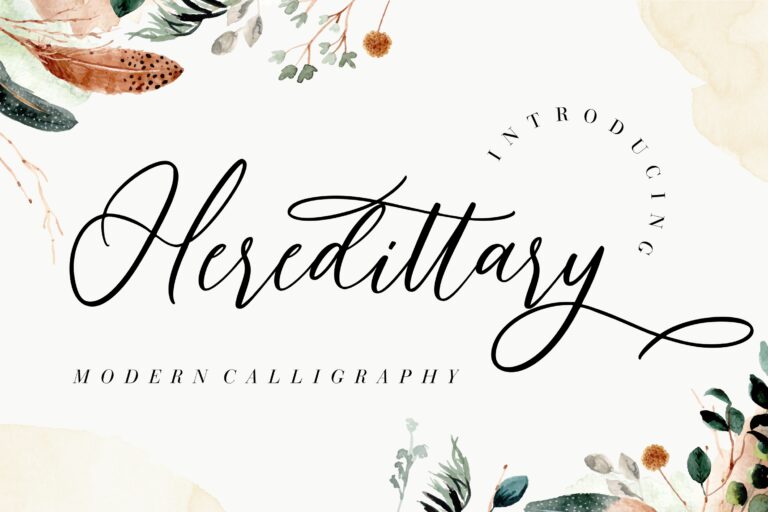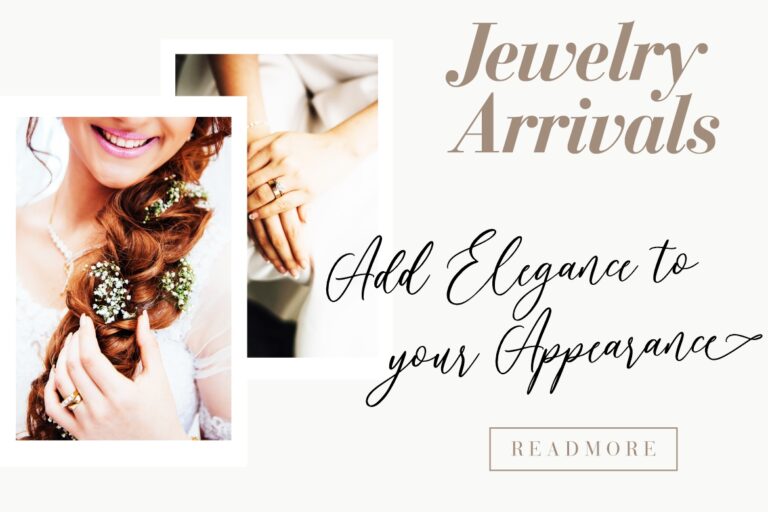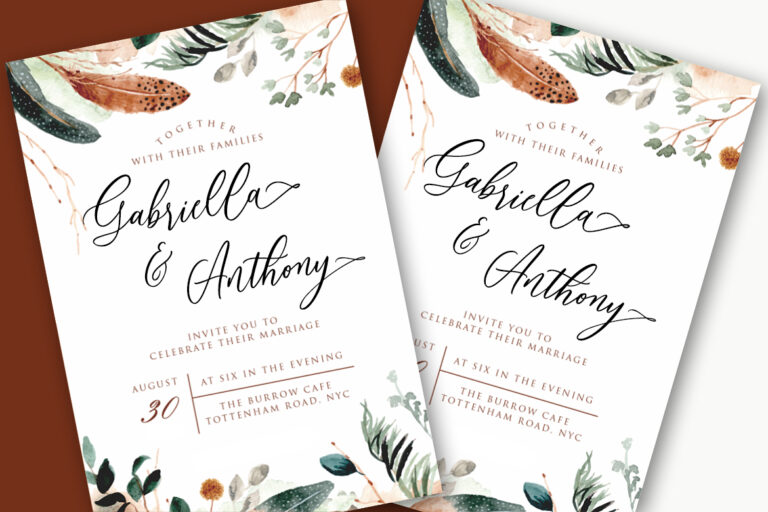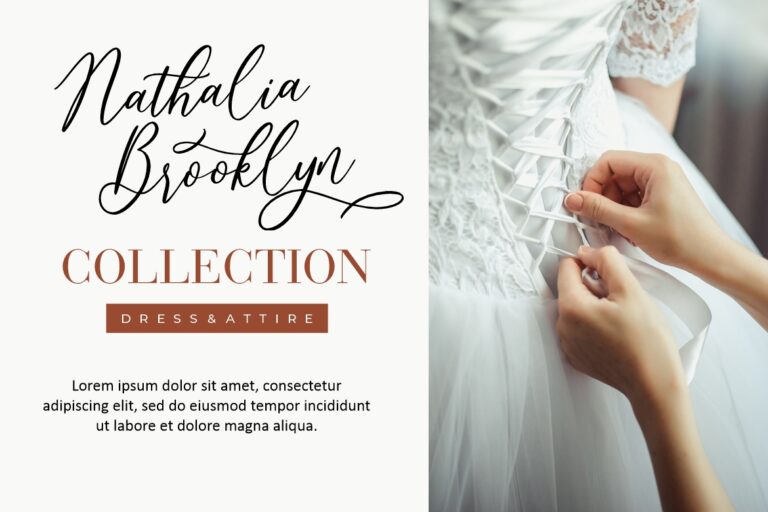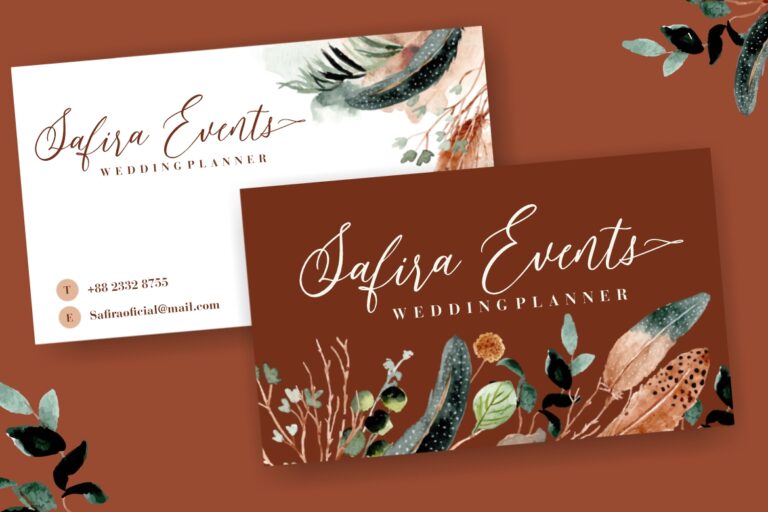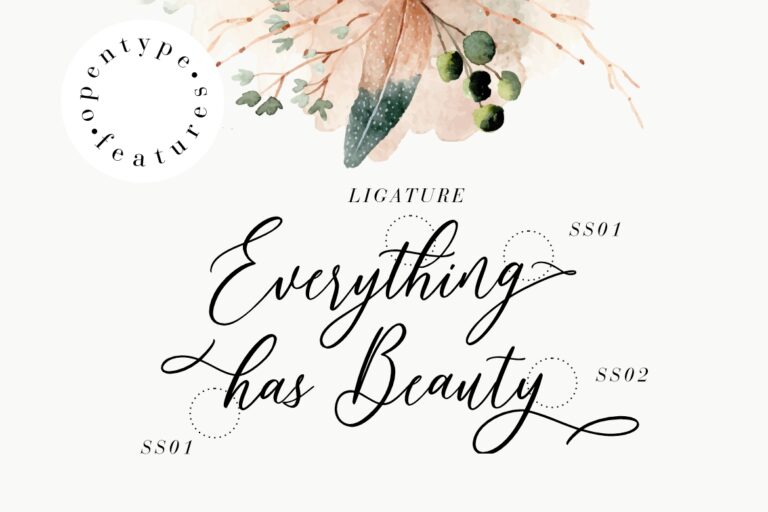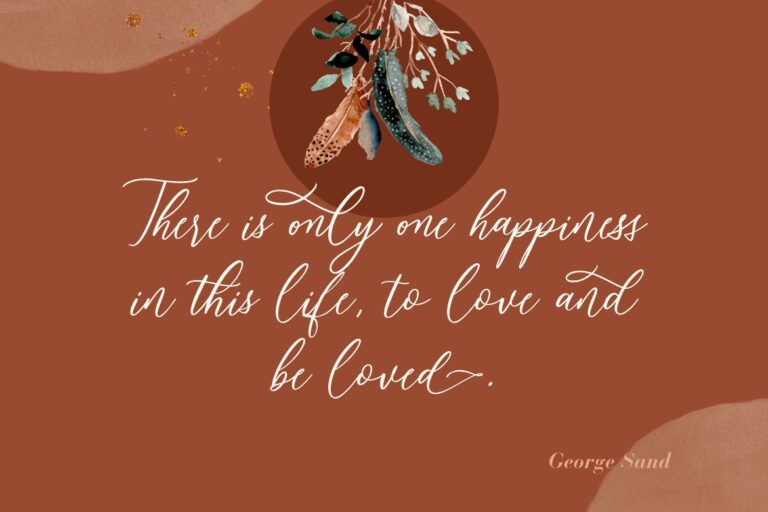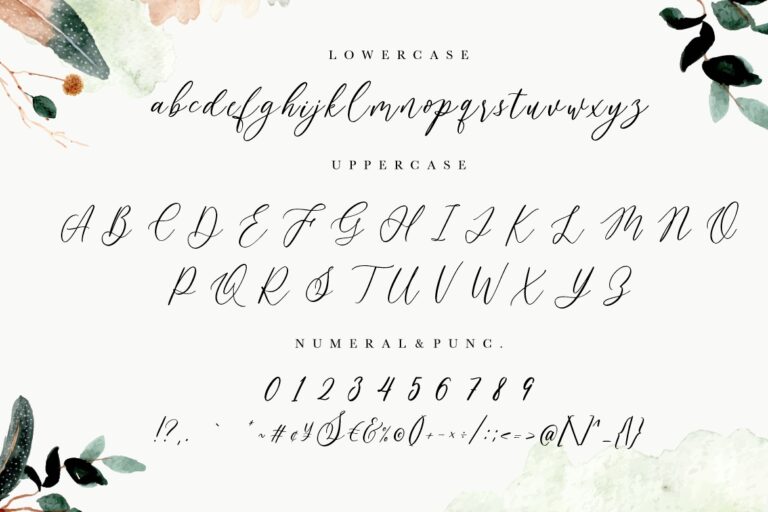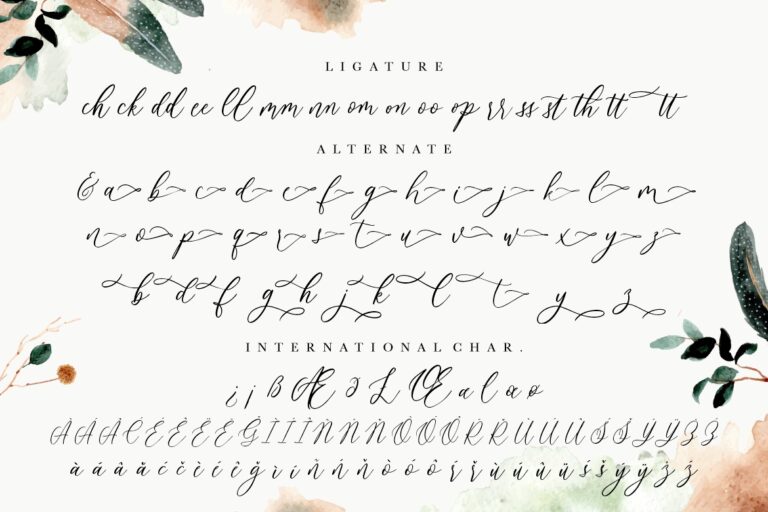
Heredittary is a modern calligraphy font which an elegant and classy style.
Heredittary is perfect for branding projects, logo, wedding designs, social media posts, advertisements, product packaging, product designs, label, photography, watermark, invitation, stationery and any projects that need handwriting taste.
Heredittary Modern Calligraphy